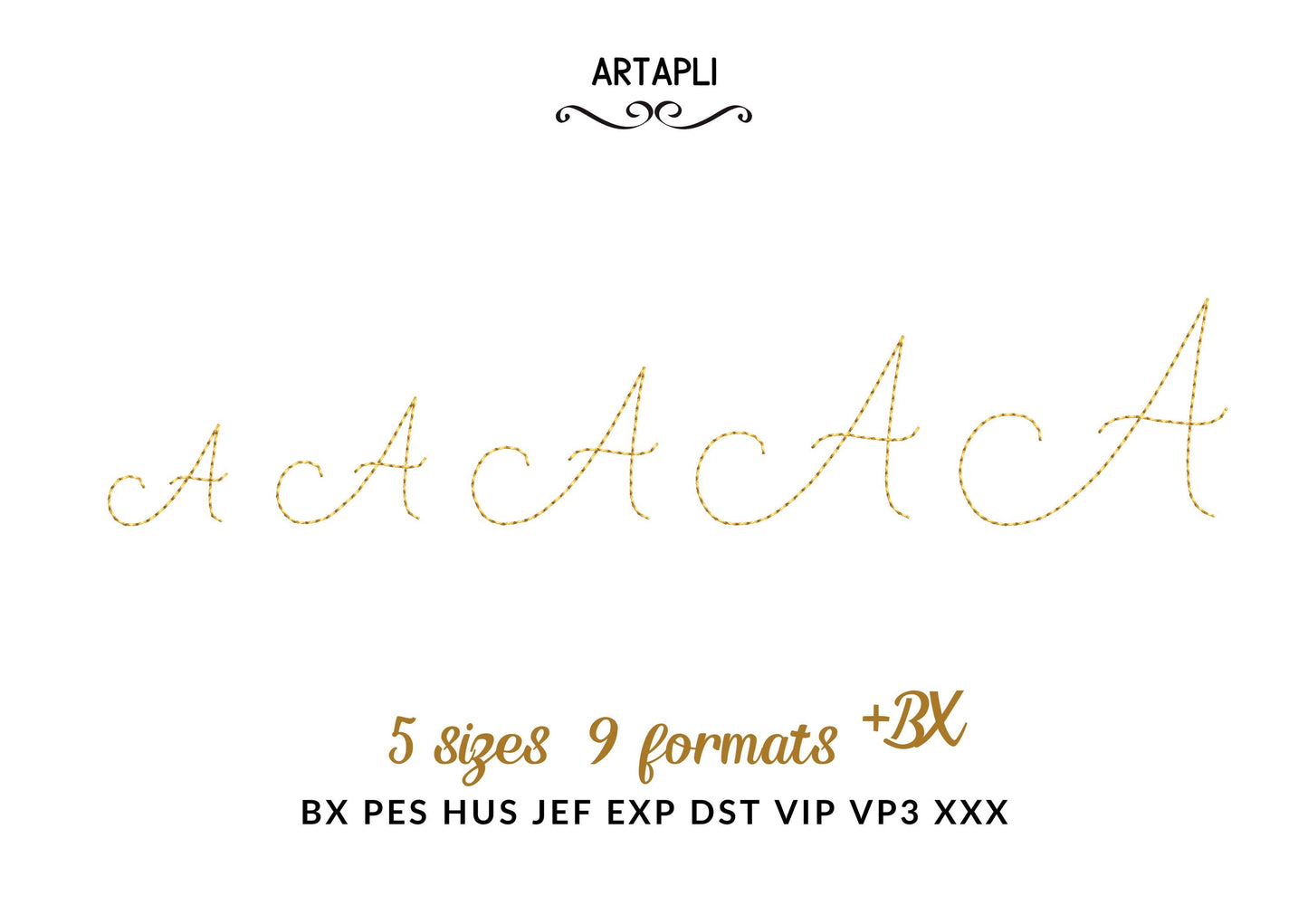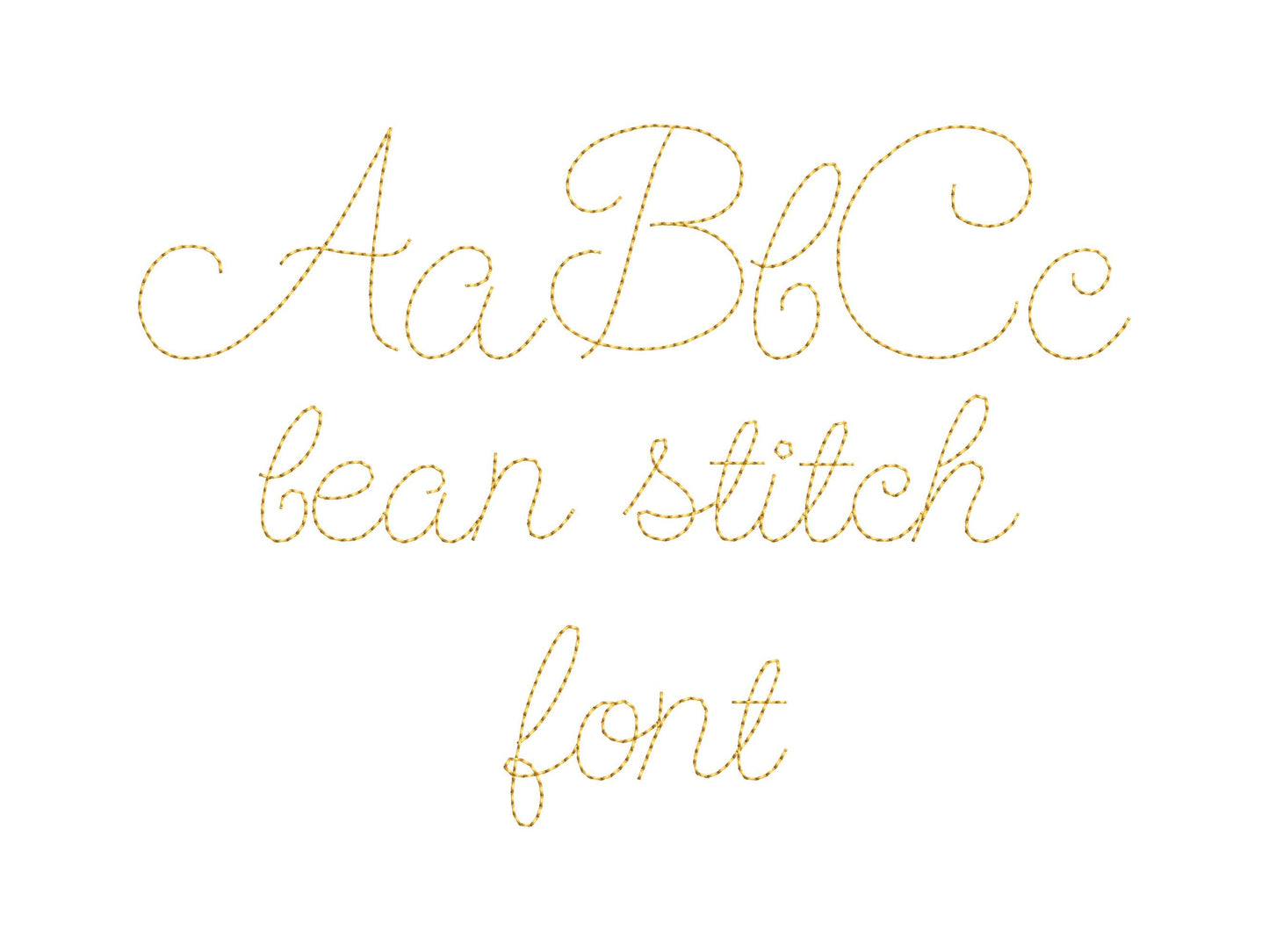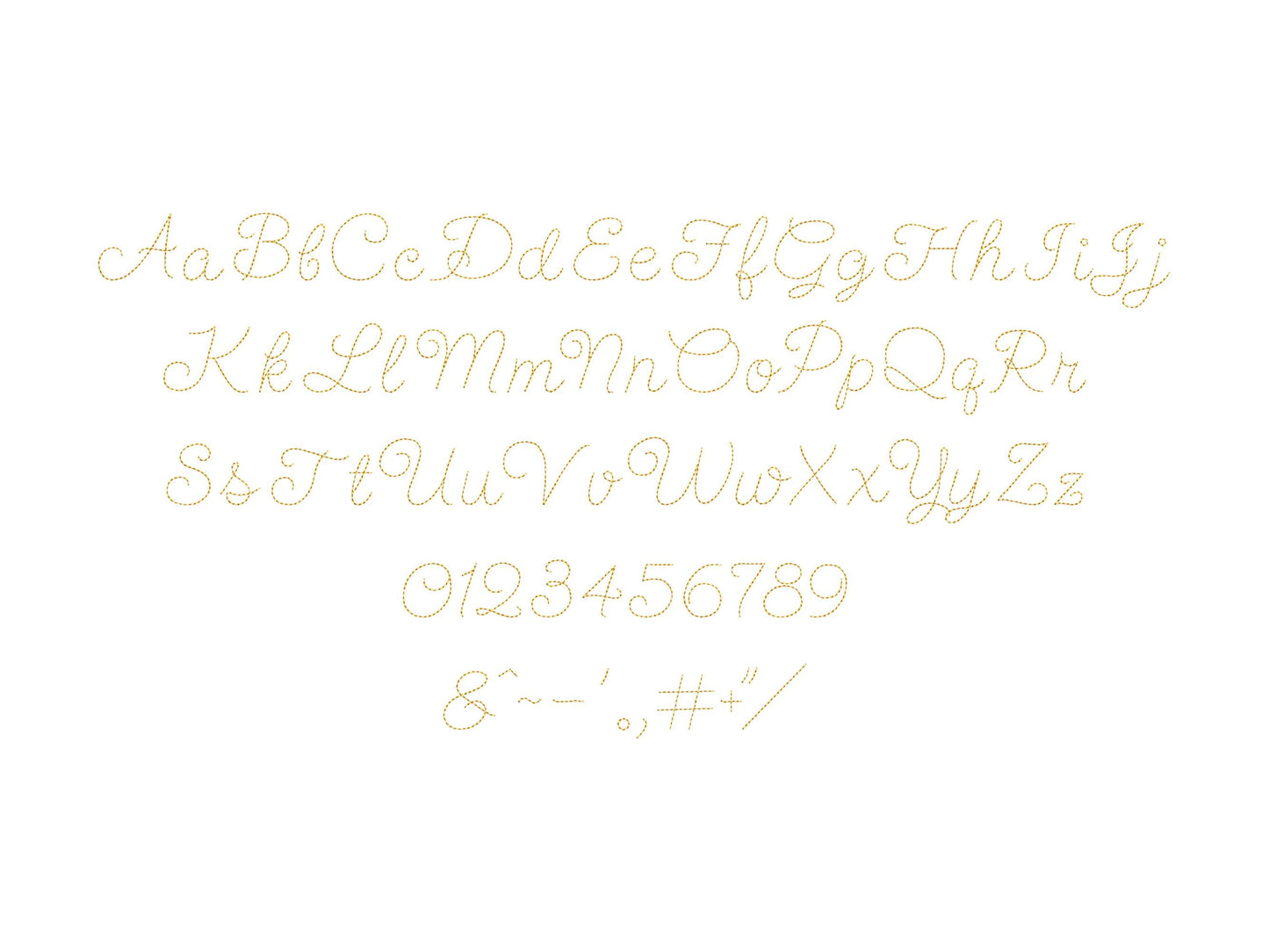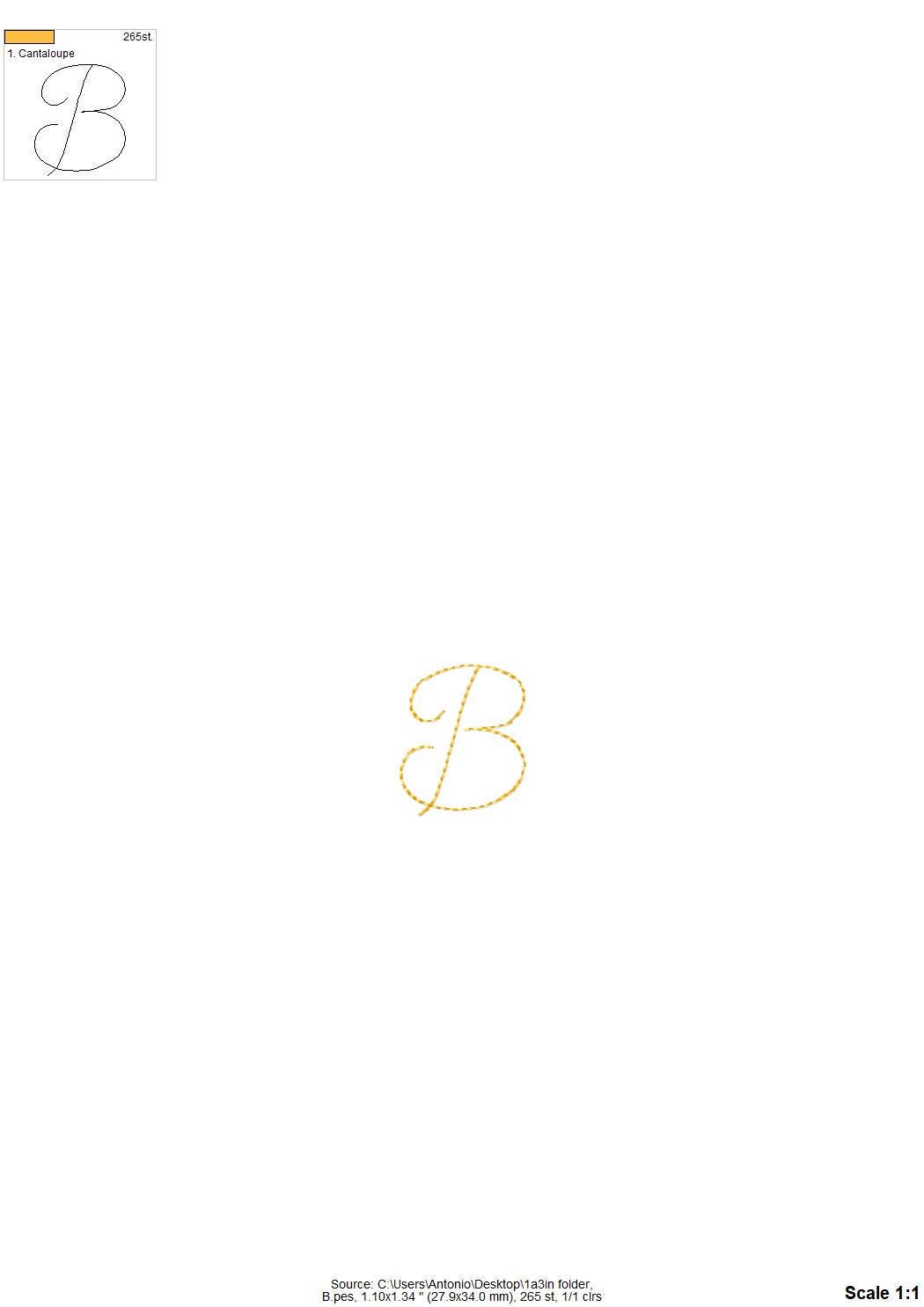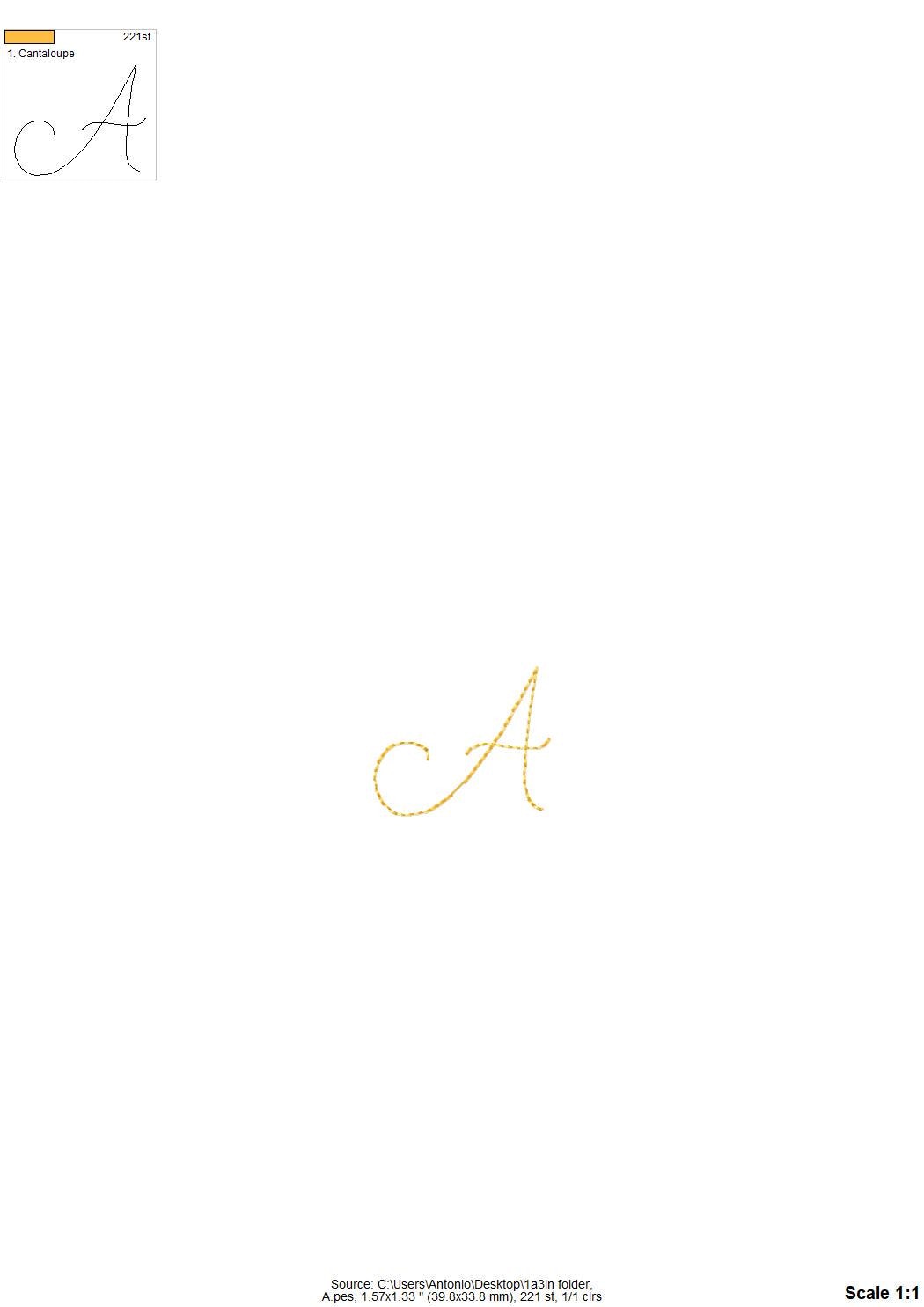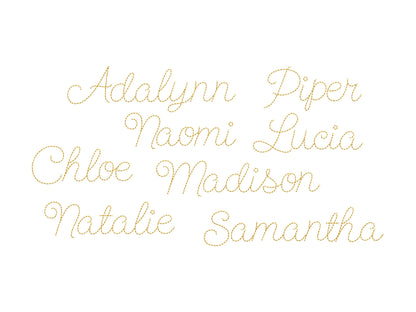
Bean Stitch Mini Line Font
Or click to open the linkA mini bean stitch thin-line script, for tiny handwritten names and dates on baby items, tags and cuffs.
Uppercase and lowercase letters, numbers and punctuation in five small sizes: 0.7, 0.9, 1.1, 1.3 and 1.6 inches.
- Mini bean stitch script font
- Uppercase, lowercase, numbers 0-9, punctuation